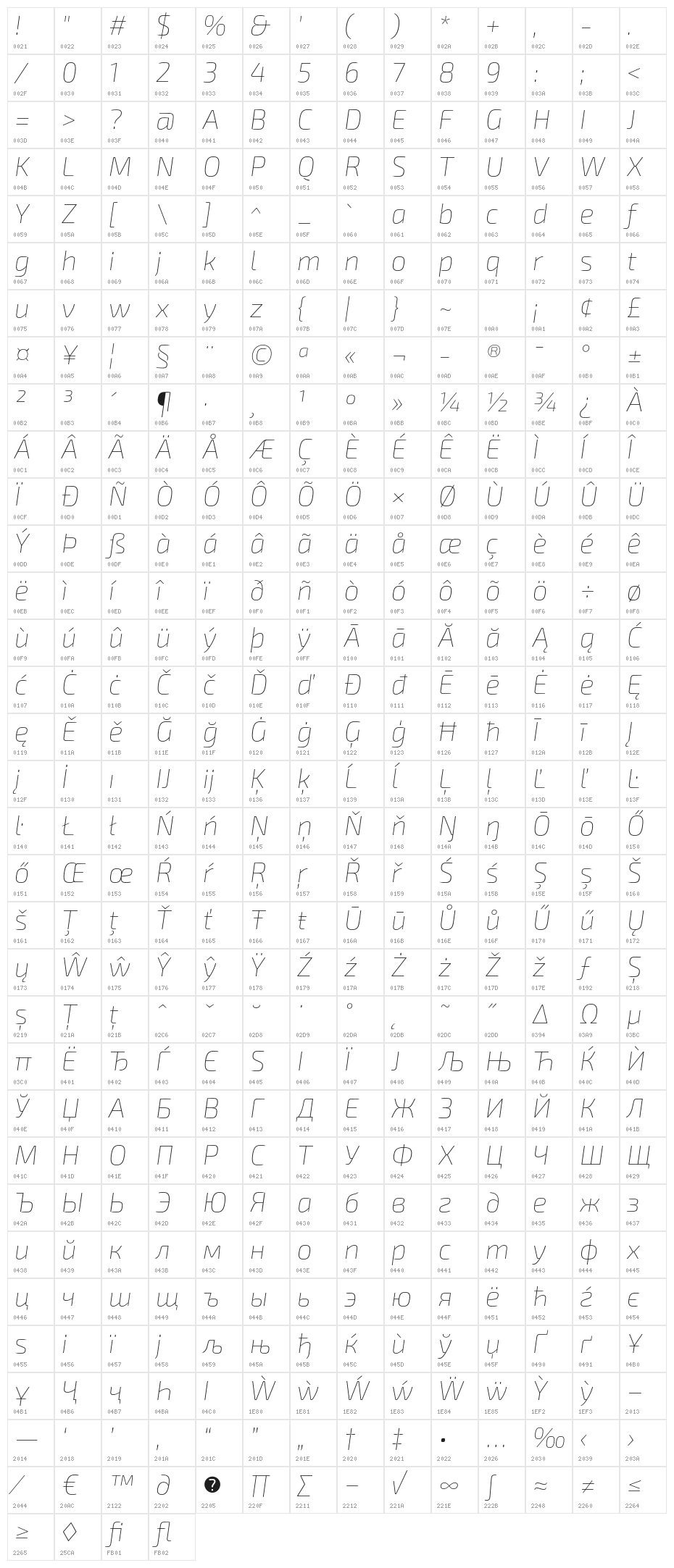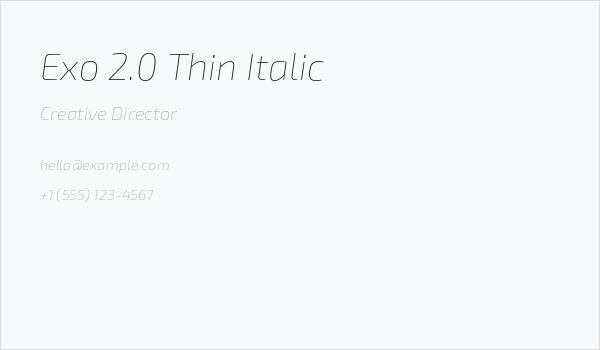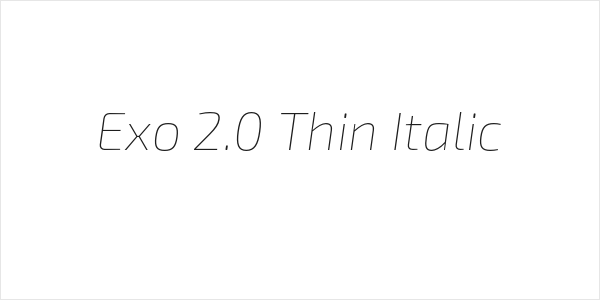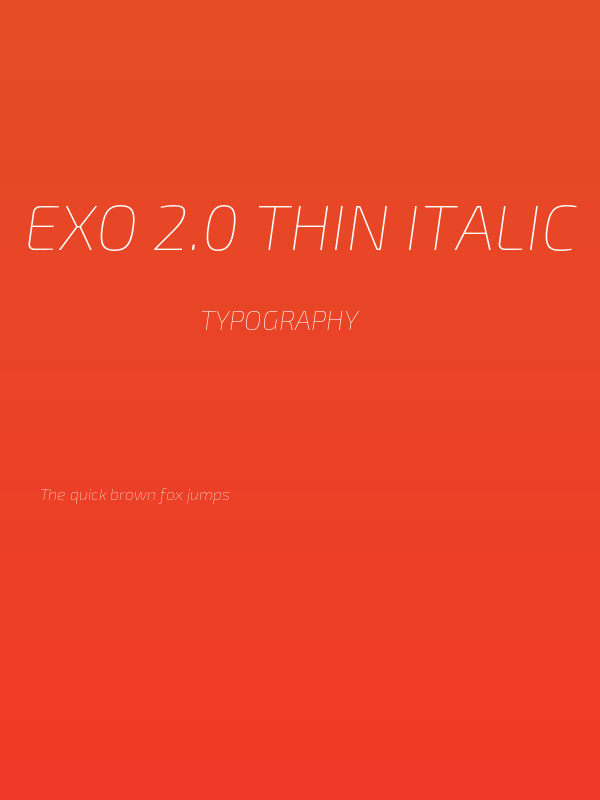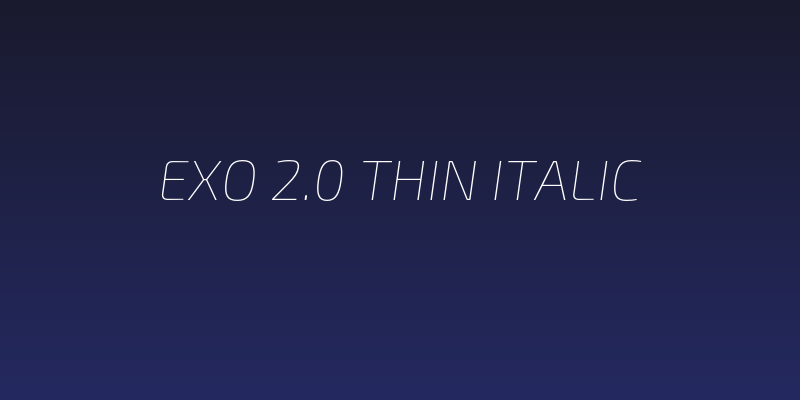
Exo 2.0 Thin Italic Font
Exo 2.0 Thin Italic Description
This font features a sleek and modern design with a thin, italicized style. The characters are elegantly elongated, providing a sense of motion and fluidity. The uppercase and lowercase letters maintain a consistent slant, enhancing the italic effect. Numbers and special characters are designed with the same thin strokes, ensuring uniformity across all elements. The overall appearance is clean and minimalistic, making it suitable for contemporary design projects. Its thin weight and italic style give it a sophisticated and stylish look, perfect for adding a touch of elegance to any text.
| Proposed Projects | Ideal for modern branding, fashion magazines, luxury product packaging, and elegant website headers. |